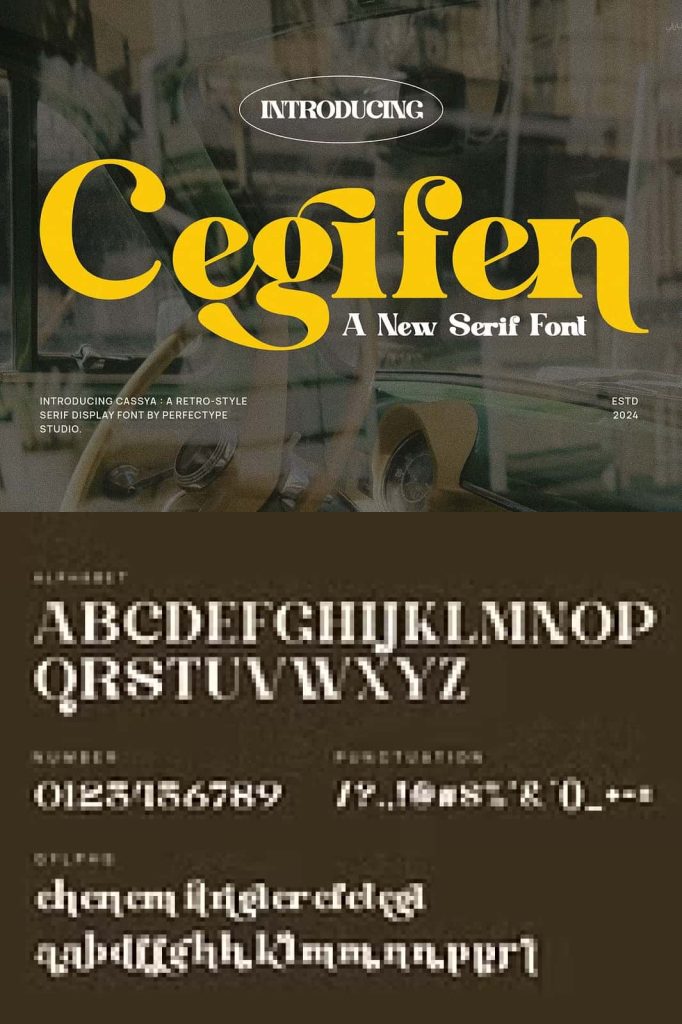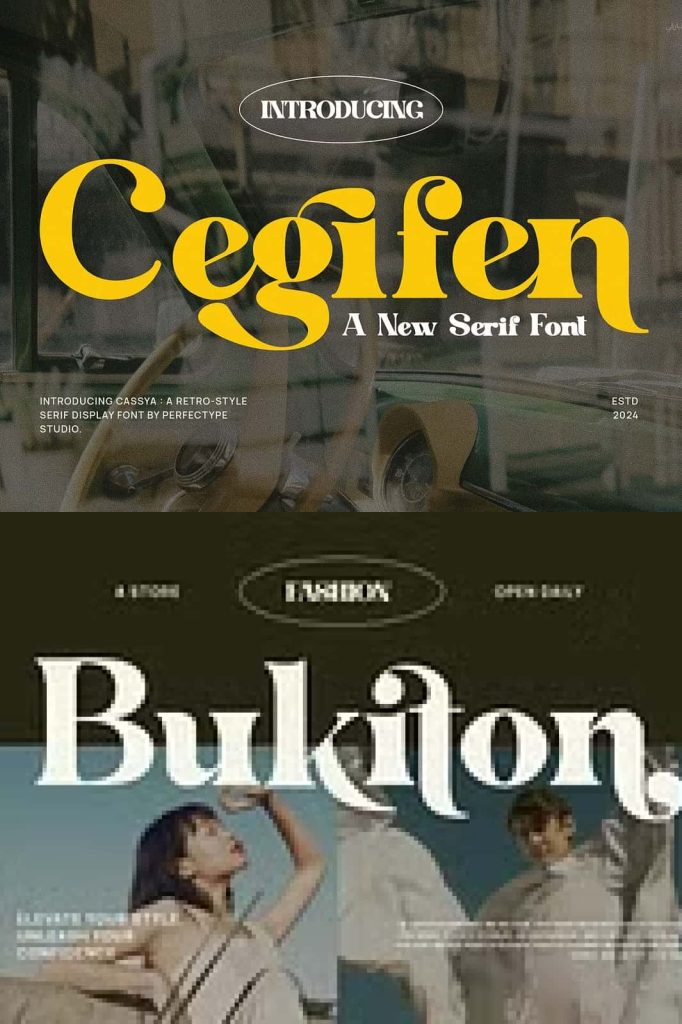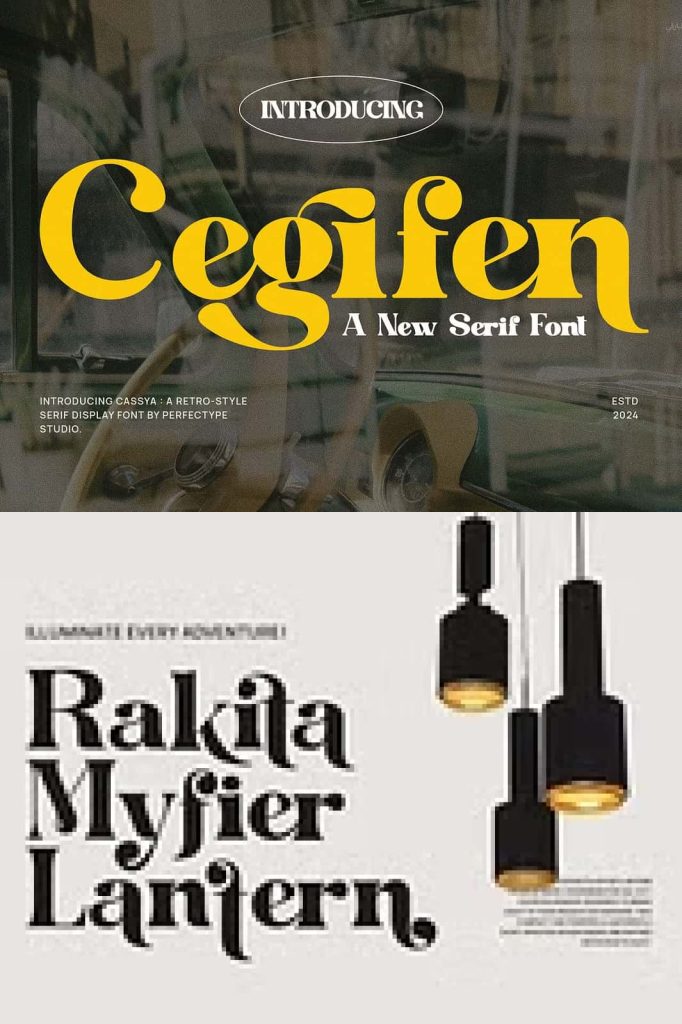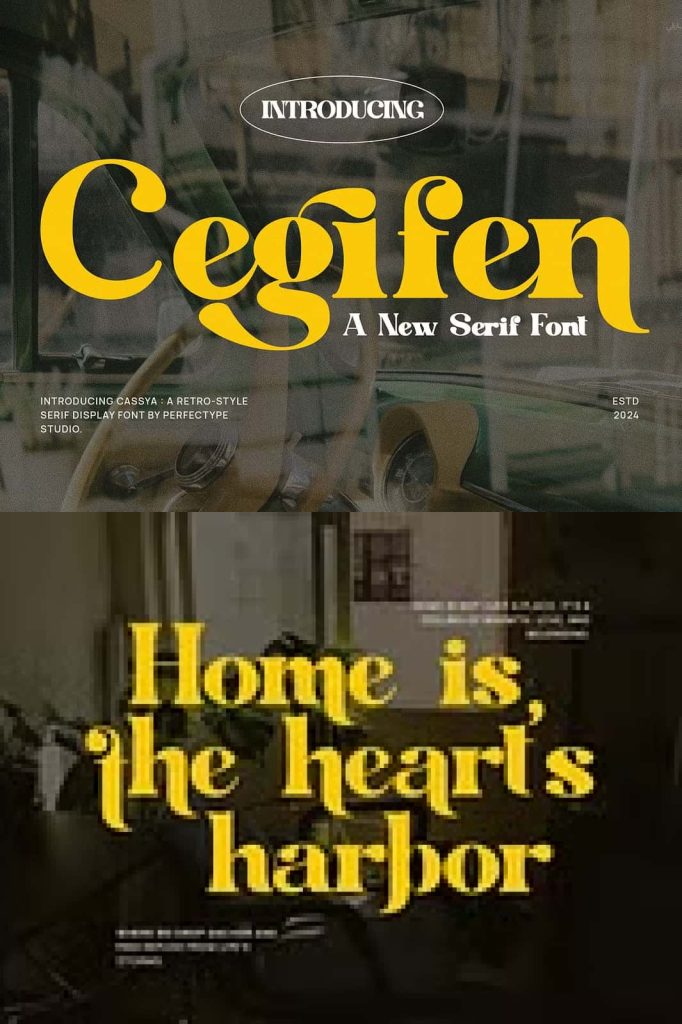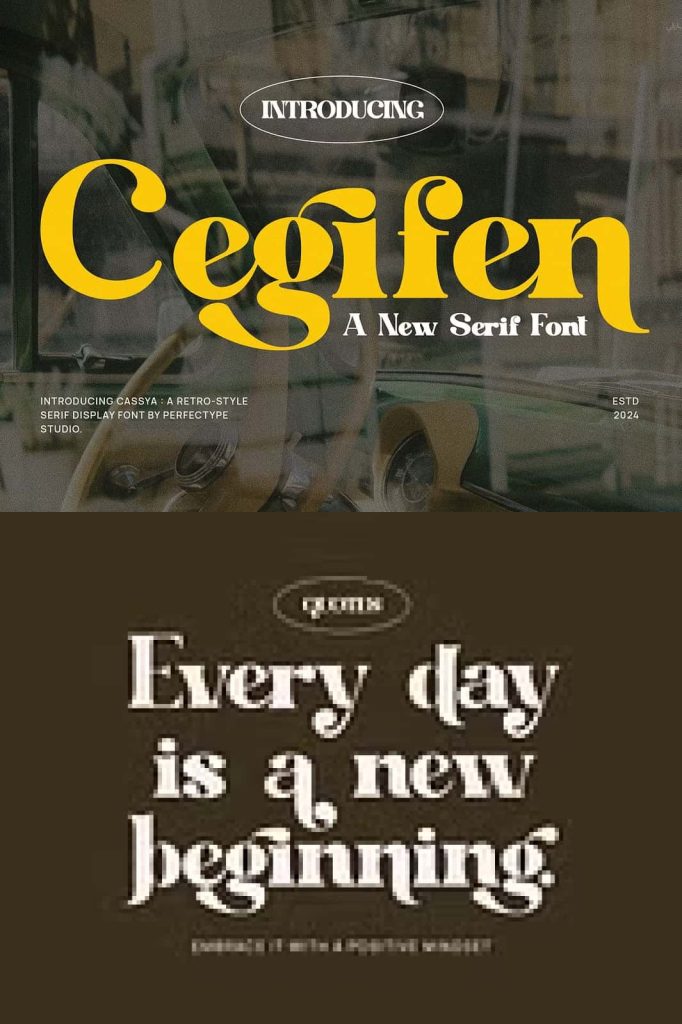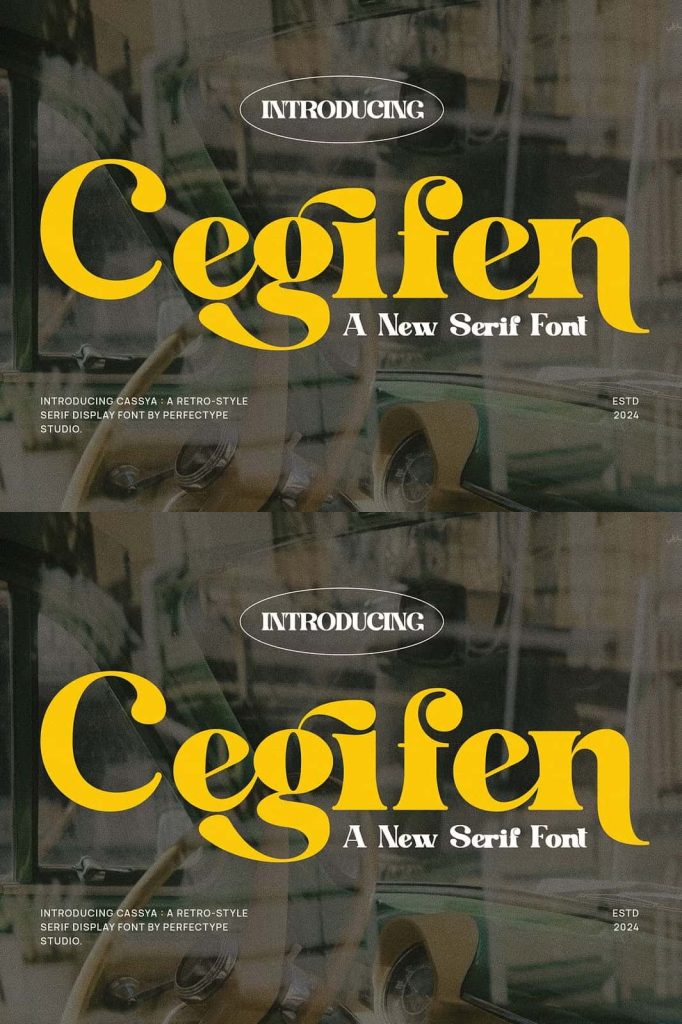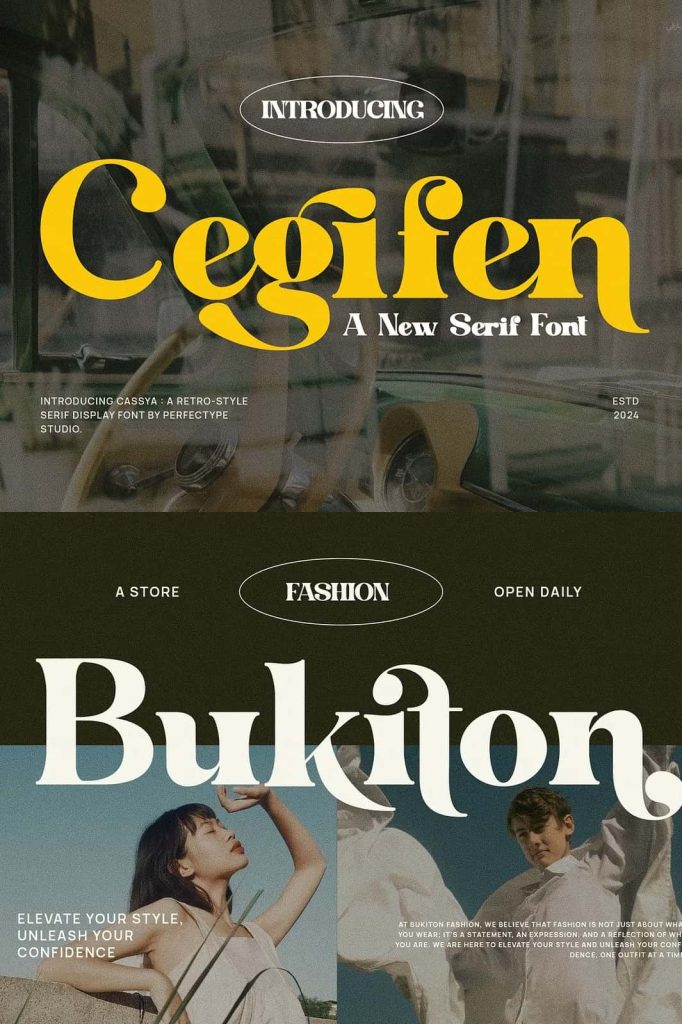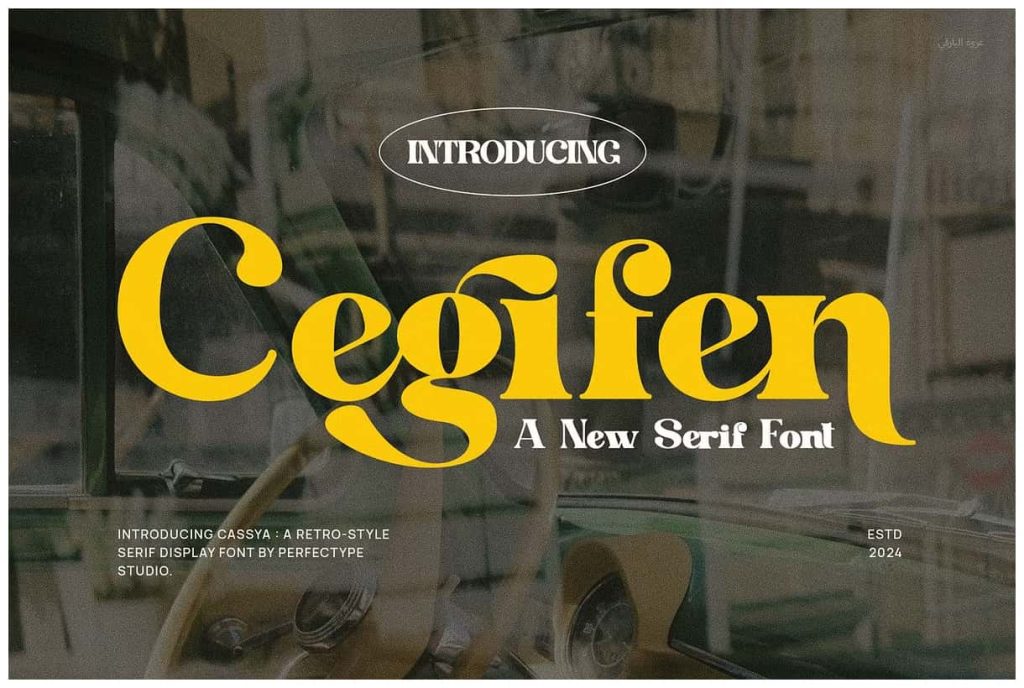
Cegifen – Elegant Ligature SerifleastedFebruary 5, 2025Fonts Cegifen is a beautifully crafted serif font that blends classic elegance with modern charm. Download